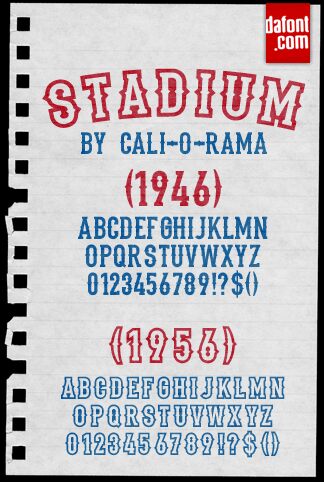
Stadium1946 by Florian Mihr is a free Western display font with tall capitals and a strong saloon-sign character. Broad vertical strokes, sharp slab serifs, and repeated diamond-like notches give the lettering a carved edge.
A barbecue restaurant or heritage workwear label could use it to establish a rugged frontier identity. The same shapes suit rodeo posters, beer packaging, and country-music merchandise with hand-painted or stamped imagery. It is most convincing as a prominent event or venue name.
Stadium 1946